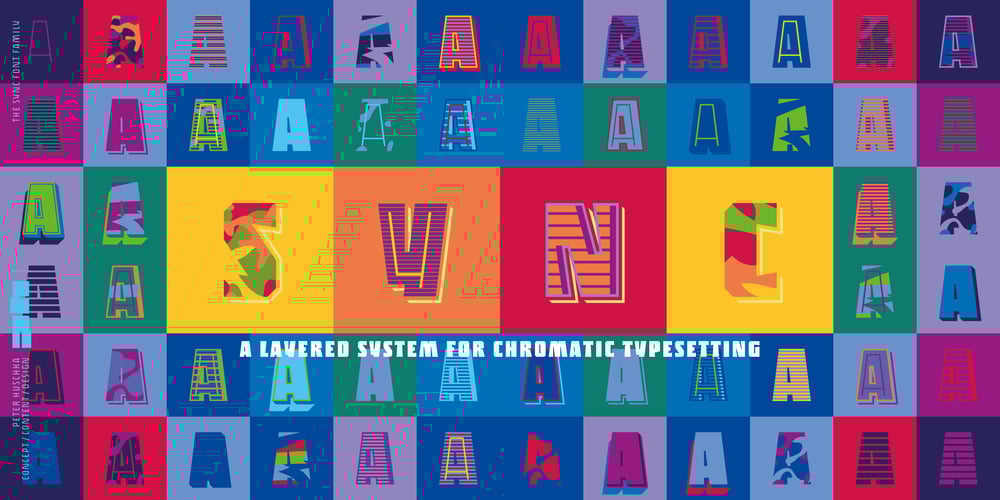
Sync Font Family was designed by Peter Huschka and published by Peter Huschka. Sync contains 28 styles and family package options. The Sync font family is a layered system for chromatic typesetting. With its stylistic variety it enables a wide range of eye-catching combinations with colors and patterns. The very first sketches were inspired by some hand-painted characters on a weathered beach sign at the French Côte d’Argent and currently the font family comes with a total of 28 single fonts. The primary font »Sync Base« is a powerful, condensed Sans Serif. Sharp cut edges, narrow wedge-shaped counters and low ascenders and descenders make the compact character of the typeface. In perfect sync with the primary font, the family includes the retro styles Lines, Engravings, Stripes and Shadows and the texture styles Invisible and Jungle. Each one of them with multiple fonts. As all Sync fonts have the same metrics, they can easily be layered in different colors to create the desired effects by using graphic applications that allow utilizing layers. Sync fonts work especially well in larger sizes and were designed for large display purposes, covers, branding, packaging, headlines, editorials, advertising, posters and the like. Check the gallery for examples. By the way, the graphics in some of the visuals come from the Linotype »Picture Yourself™« collection designed by Karin Huschka and Peter Huschka. Sync & enjoy!